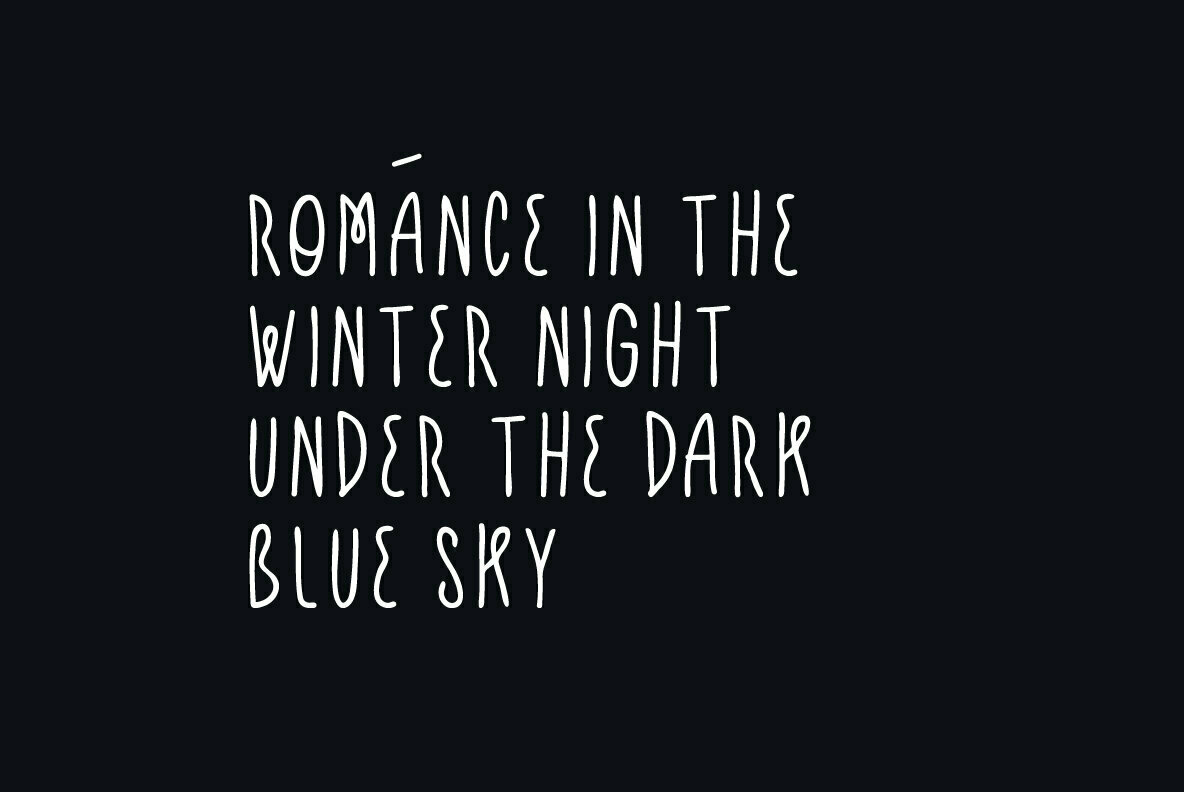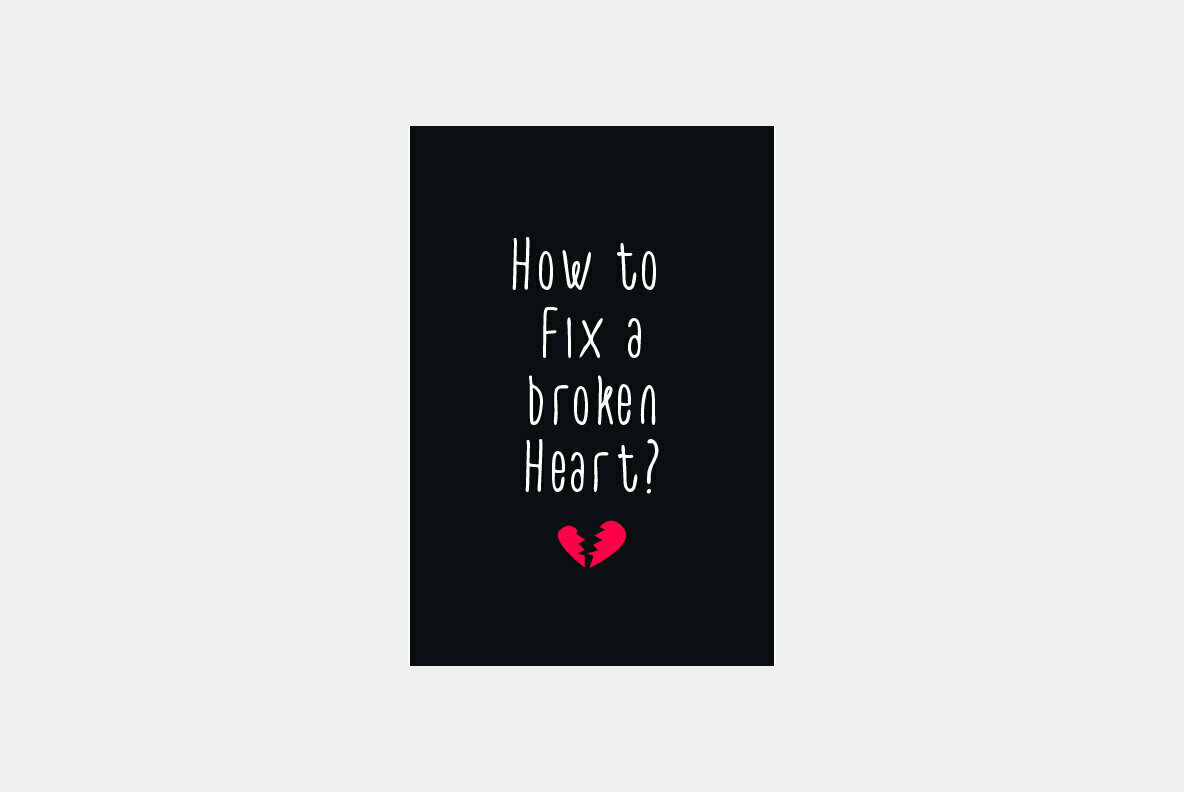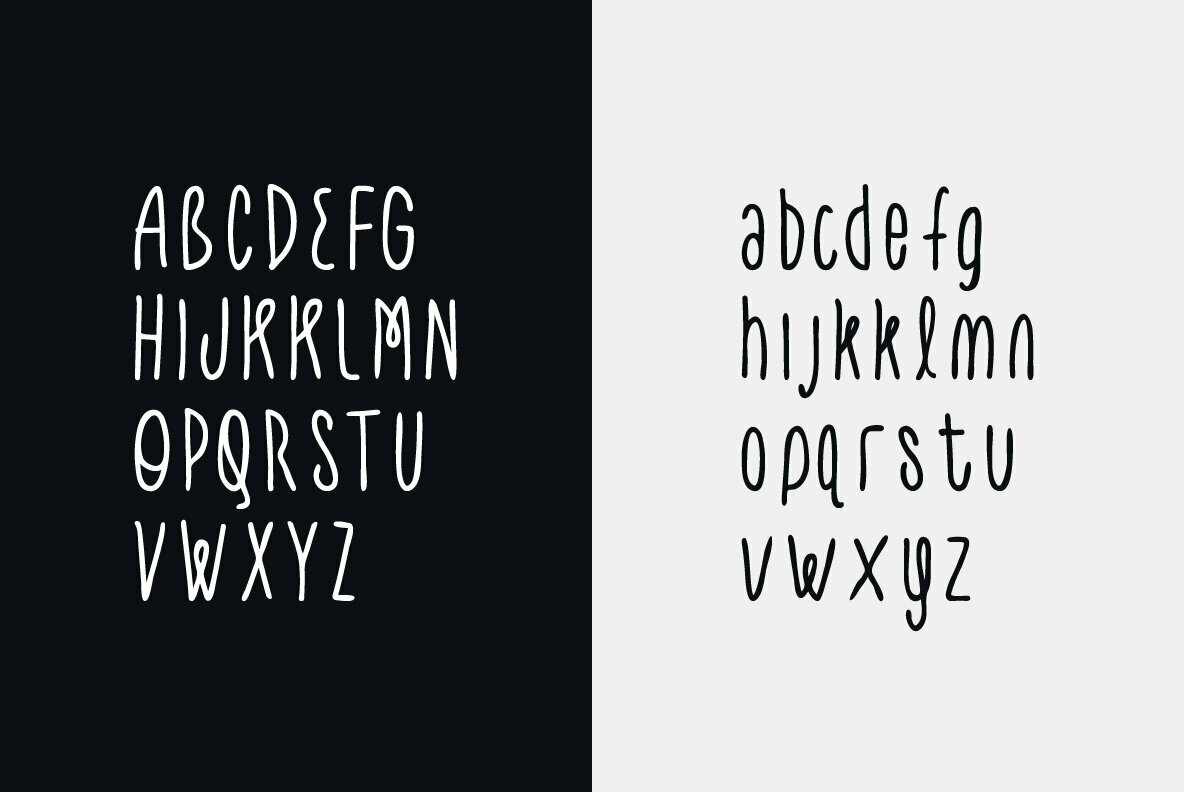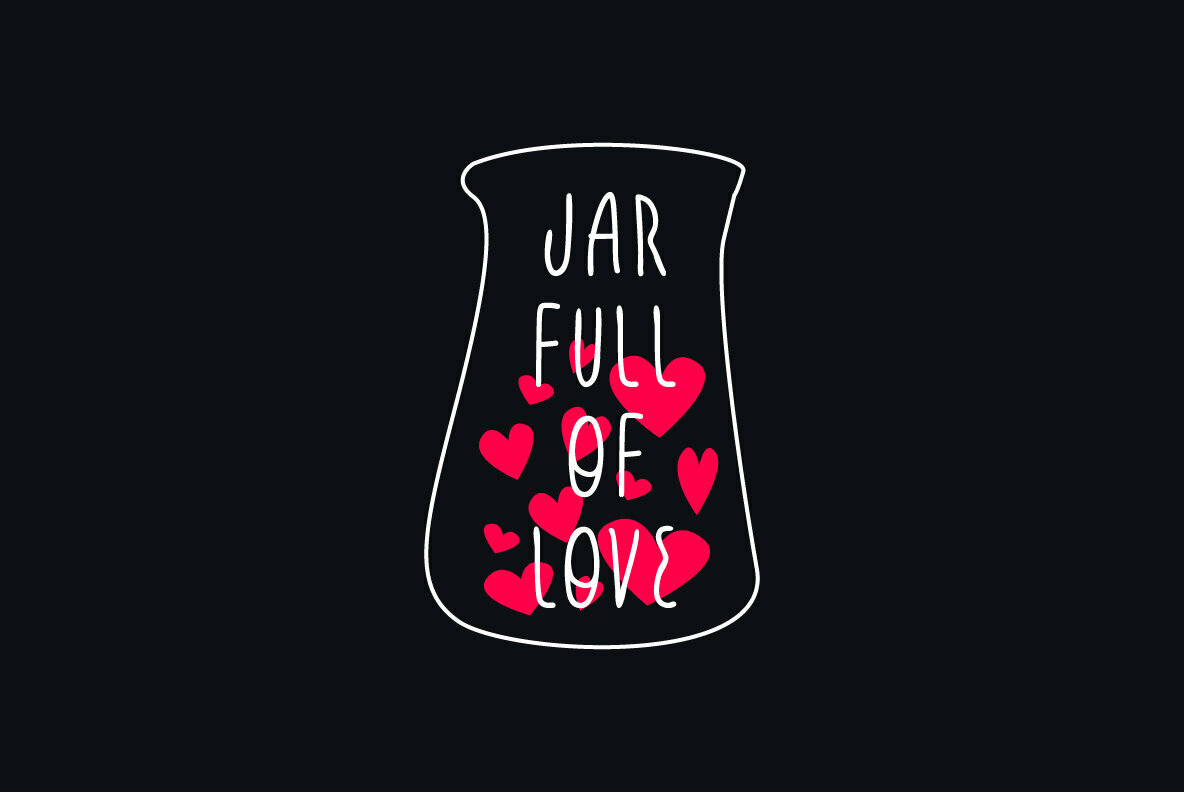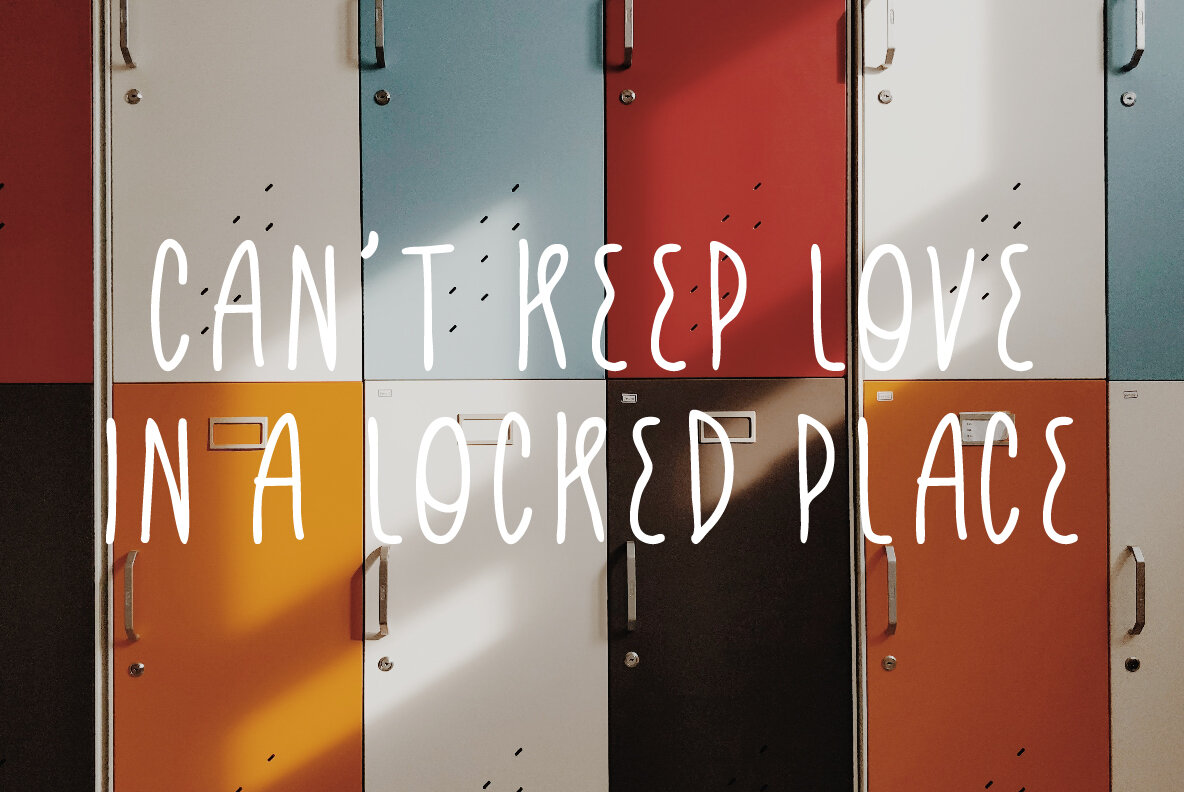
A fun, modern handwritten font by moonbandit font foundry. Inspired from the memories of childhood and the playful nature of it, Silver Night is the perfect font if you need a personal touch in your design projects. This typeface consist of uppercase, lowercase and also multilingual support.